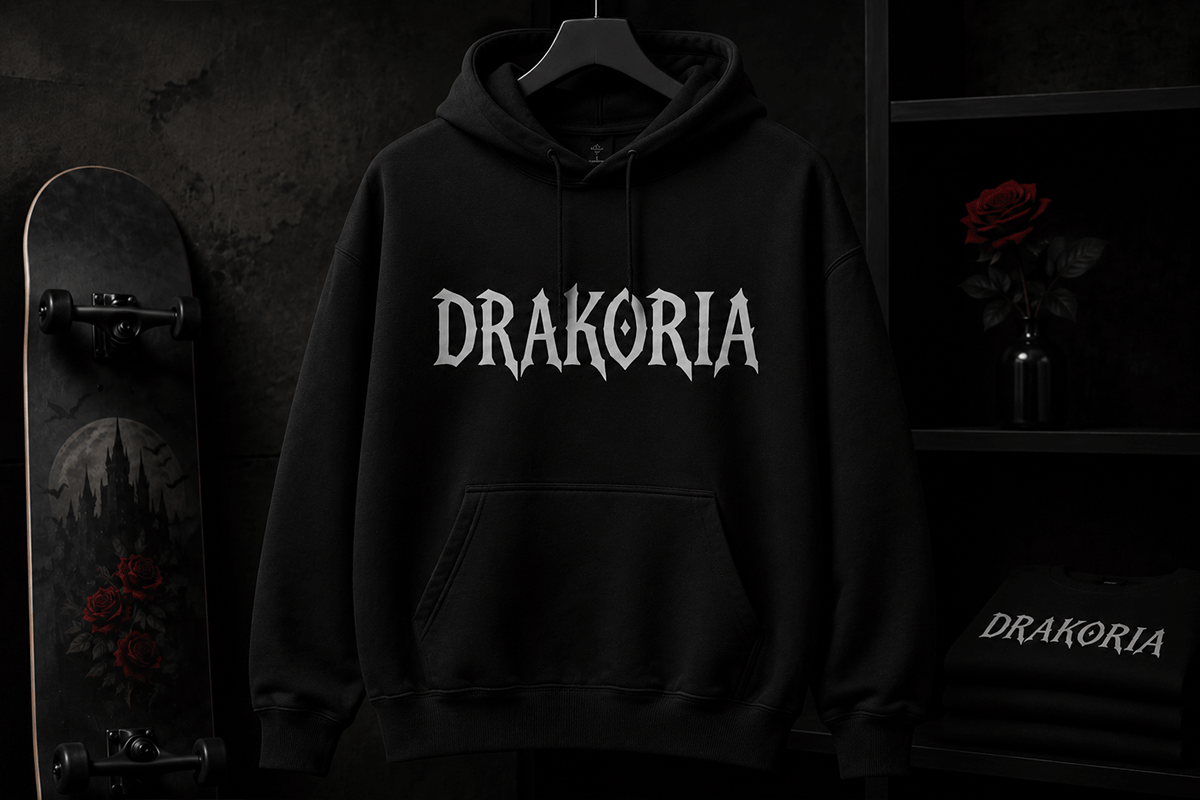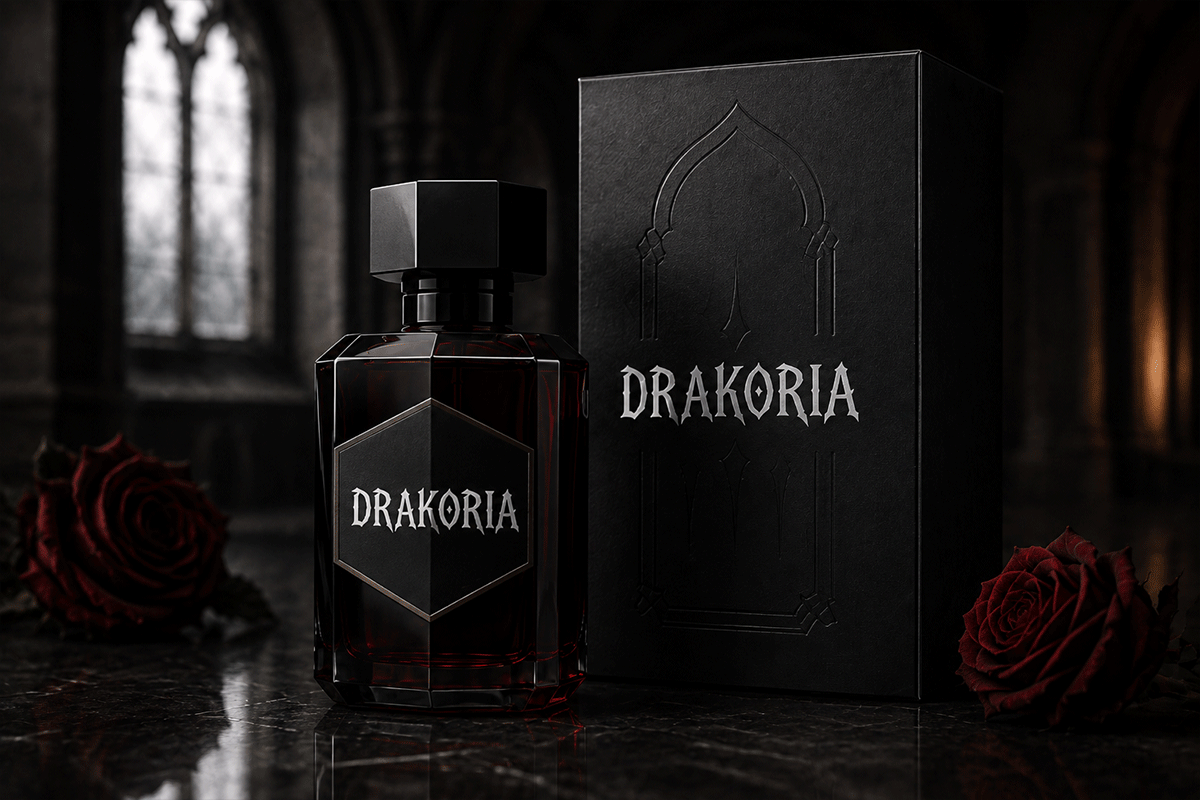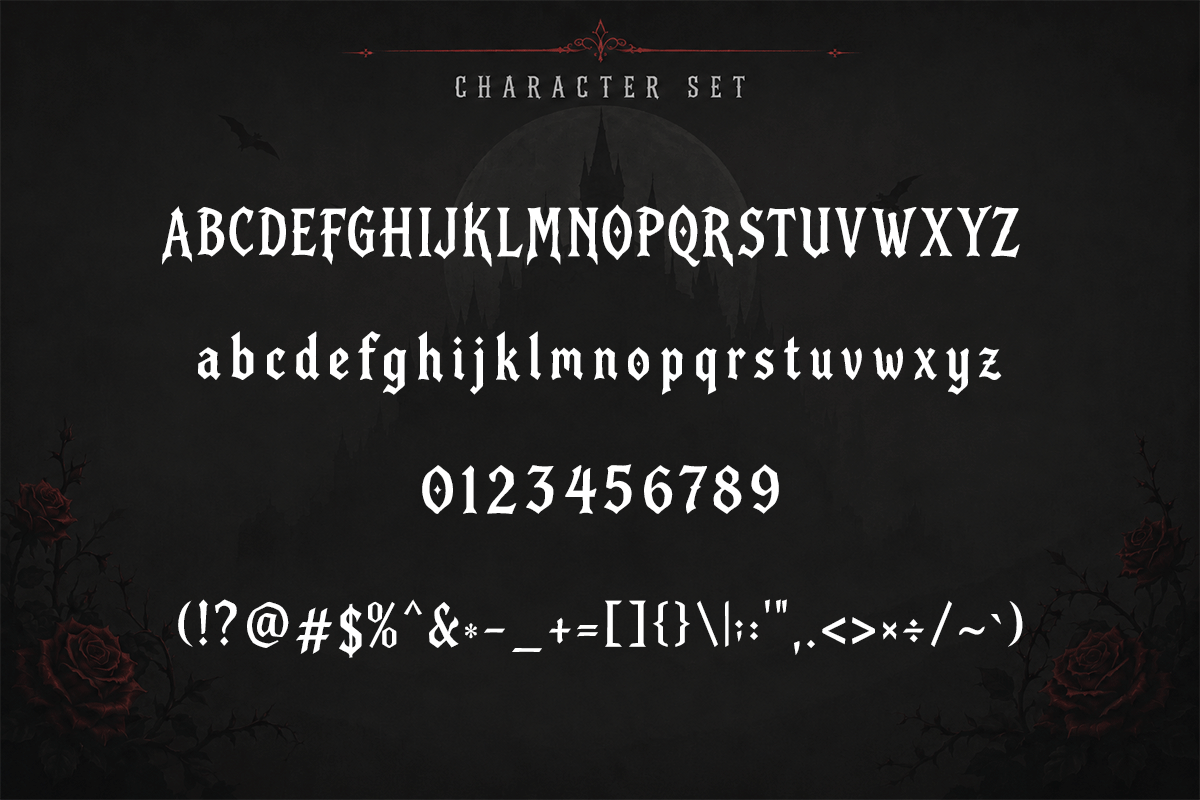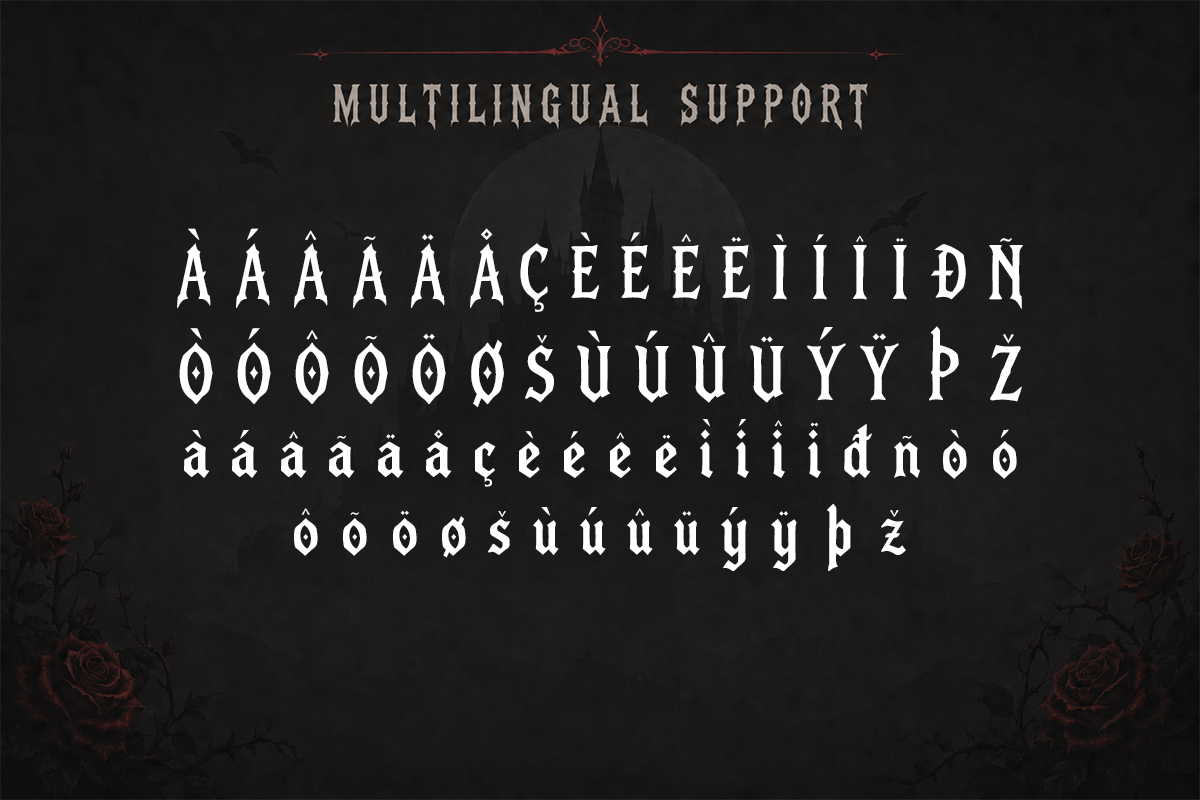
Drakoria A Modern Ghotic Display Font is a dramatic gothic display typeface crafted with sharp details, elegant curves, and a powerful medieval character. Inspired by dark fantasy, ancient castles, vampire tales, and mysterious gothic aesthetics, this font delivers a bold and unforgettable presence.
Its distinctive letterforms combine classic gothic influence with a modern display style, making Drakoria A Modern Ghotic Display Font perfect for projects that need a dark, luxurious, mysterious, or cinematic atmosphere. The strong silhouette and decorative details make every word feel commanding and sophisticated.For our customers, we provide a collection of The Best decorative Fonts, each with its own unique styles and characteristics, so that our customers can create any design they want. We know what our clients love! That is why we prepare everything you may need in one simple downloadable package for you. Our easy-to-grab package contains all of the files you will ever need to create beautiful typography!